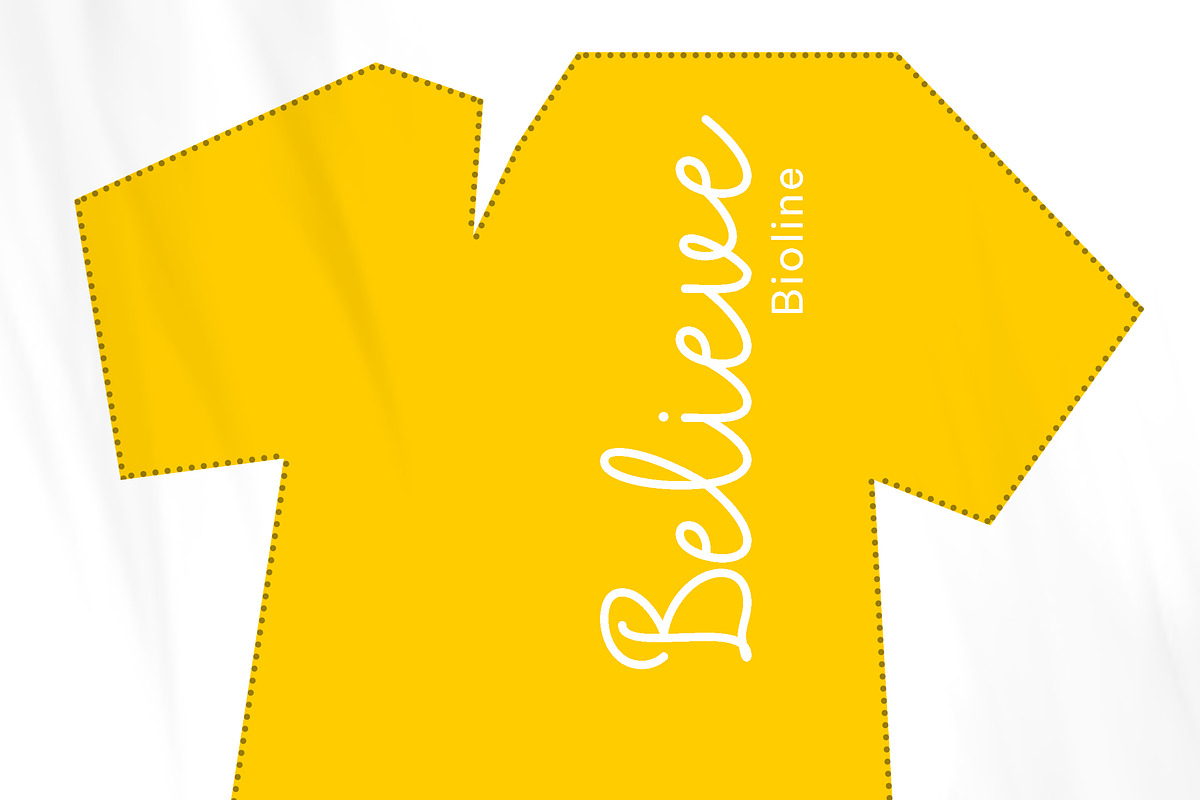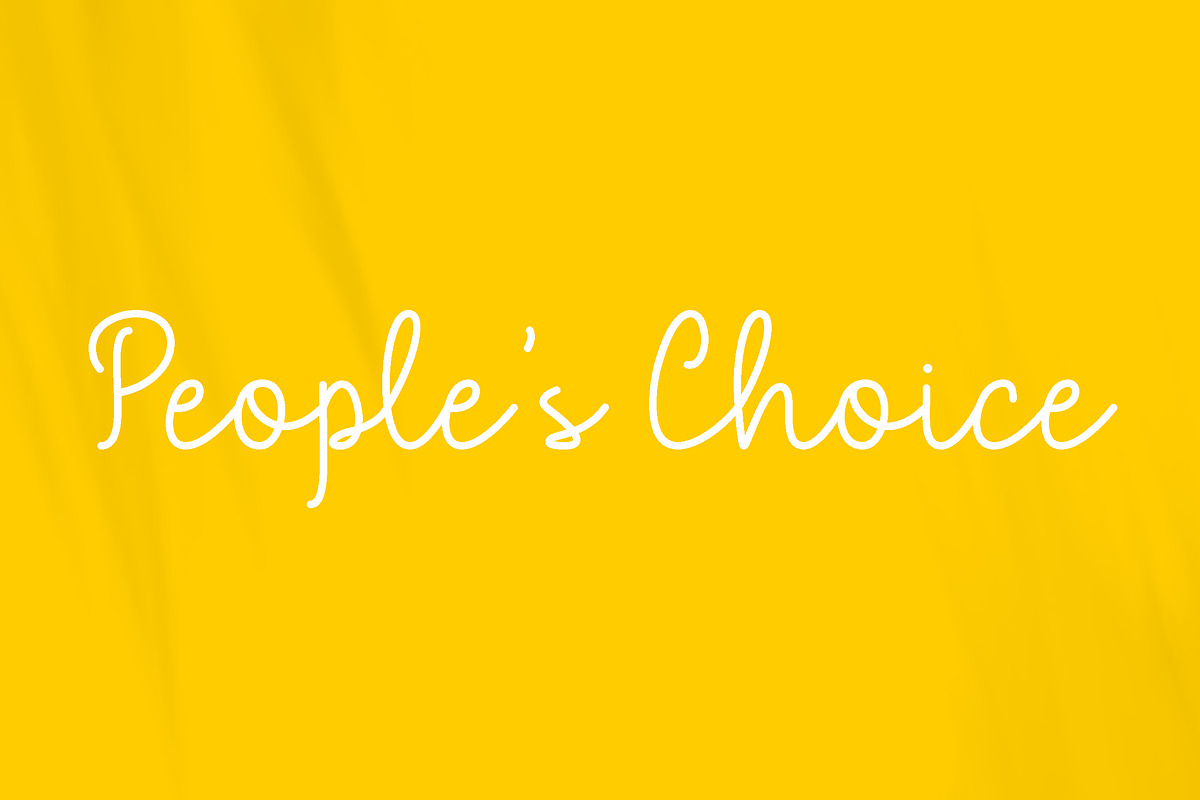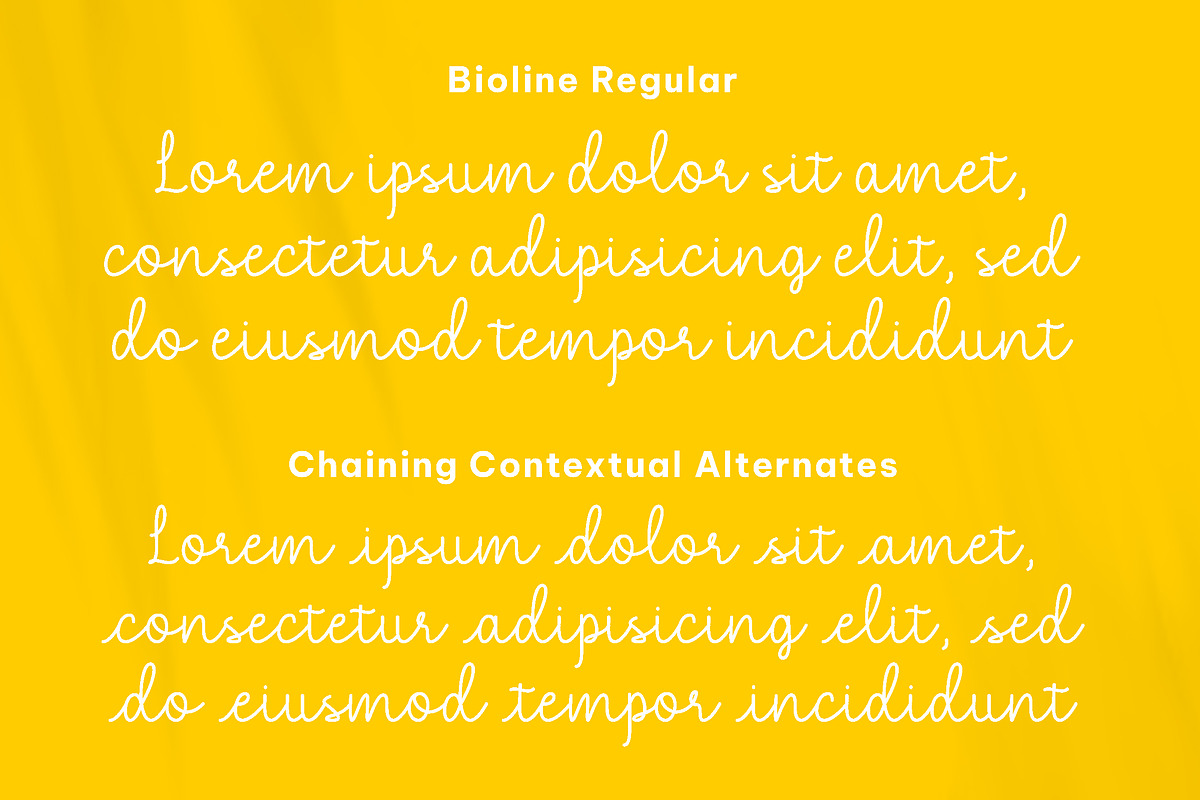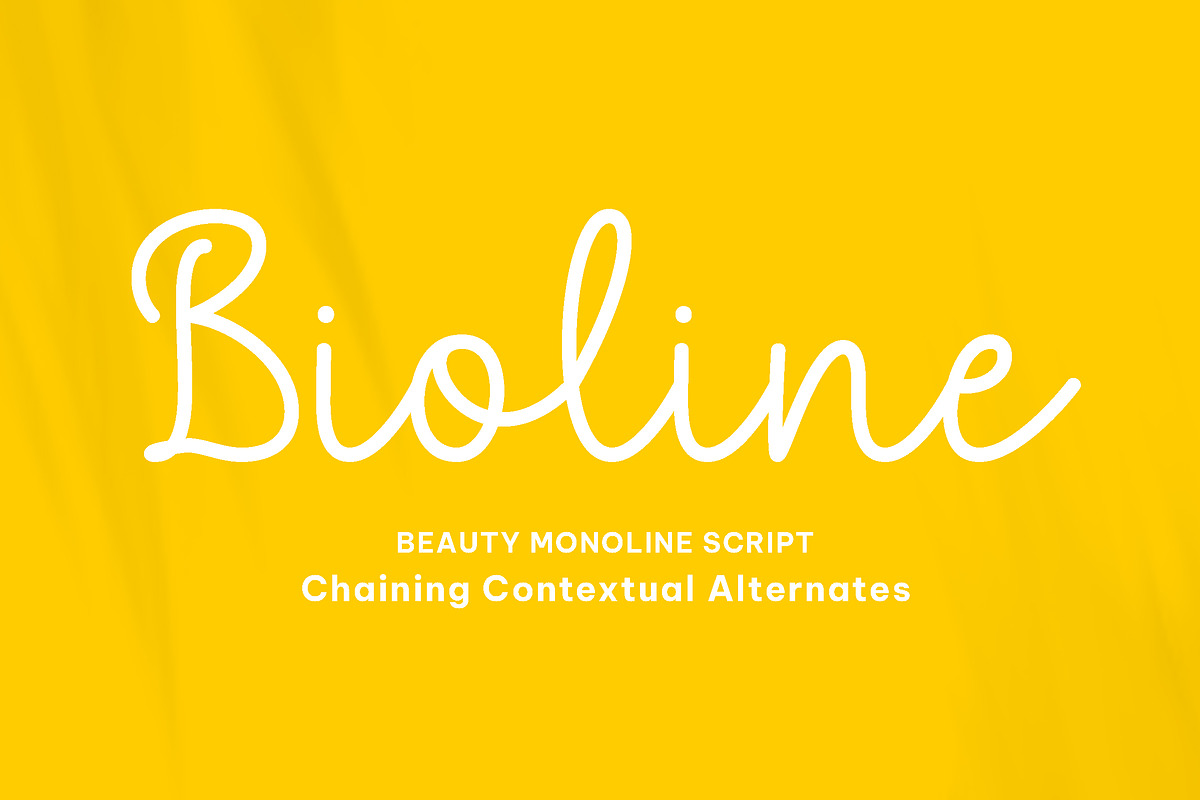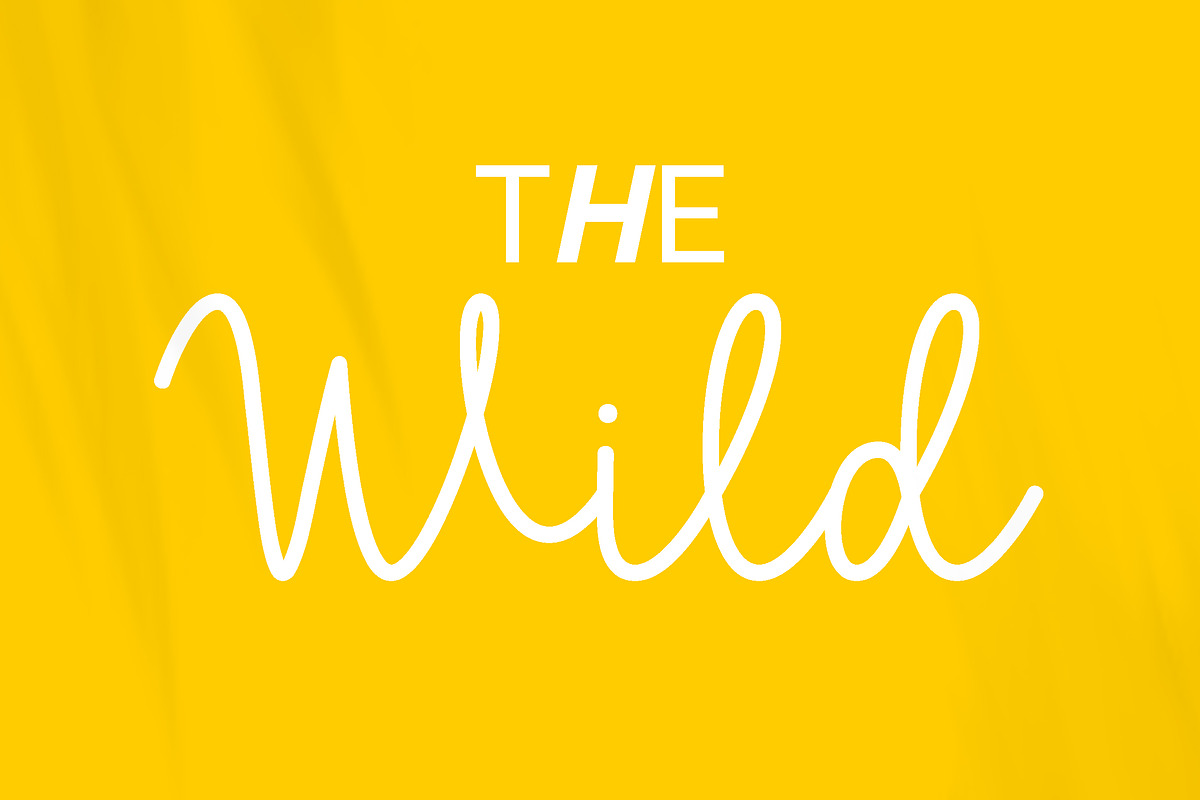
Bioline - Beauty Monoline script
Bioline is a beauty line script font. This font is neatly crafted and highly detailed. This simple font is very elegant, pretty, modern, lettering, trendy and monospace. lettered duo font. Whatever the topic, this font will be a wonderful asset to your font library, as it has the potential to enhance any creation. Whether you’re using it for crafting, digital designing, presentations or greeting card making, it’s perfect. This font is PUA encoded which means you can access all of the glyphs and alternates with ease! (please type the preview to see if I have what you need!)